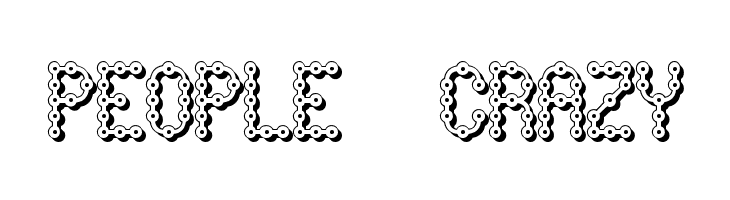
CurlyLetters Font
- Font: CurlyLetters
- Weight: Medium
- No. of Characters:: 462
A playful, chain-like decorative font with bold outlines and circular patterns.